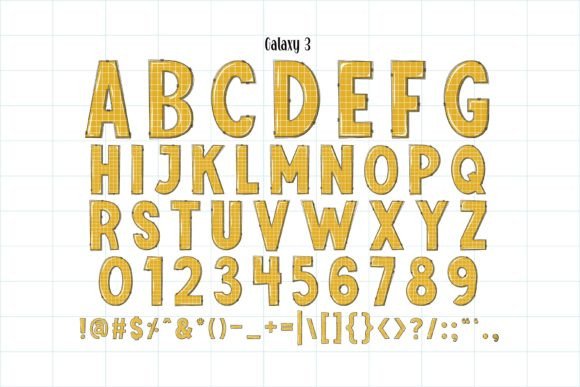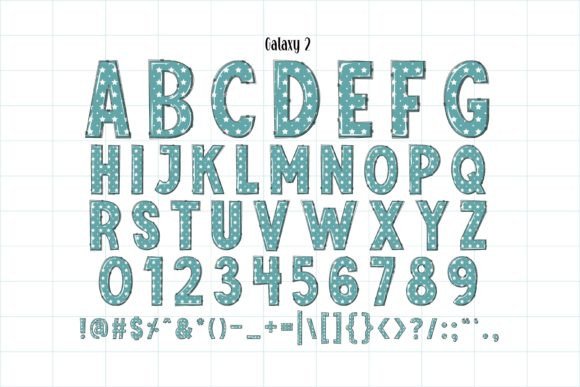
Galaxy Font
Introducing “Galaxy,” an enthralling color font that embodies the infinite beauty of the cosmos. Perfect for sublimation T-shirt designs, this captivating typeface emulates the vibrant hues and textures found in distant galaxies and outer space. Every character sparkles with depth and mystery, reminiscent of the astronomical wonders in a universe of SVG PNG. Expertly crafted to capture the essence of celestial artistry, “Galaxy” will add a touch of the extraterrestrial to your digitized creations. Step iSpace Alphabet, Space Font, Doodle Letters, Doodle Font, 3D Alphabet PNG, Digital Download, Outer Space Clipart, Alphabet Clipartnto the infinite expanse of outer space with every stroke of this stellar font.